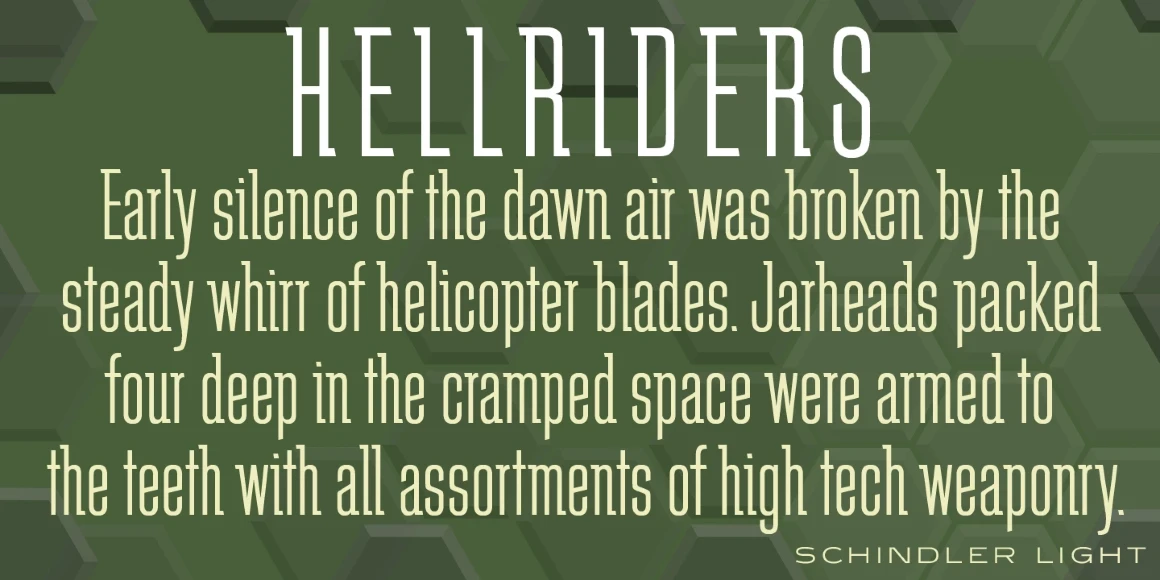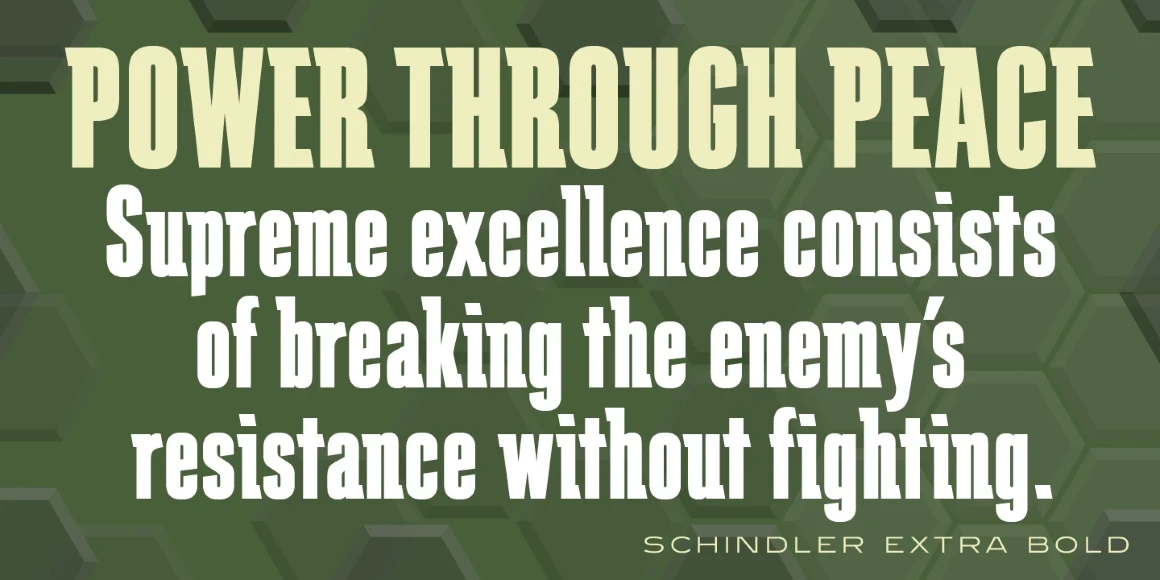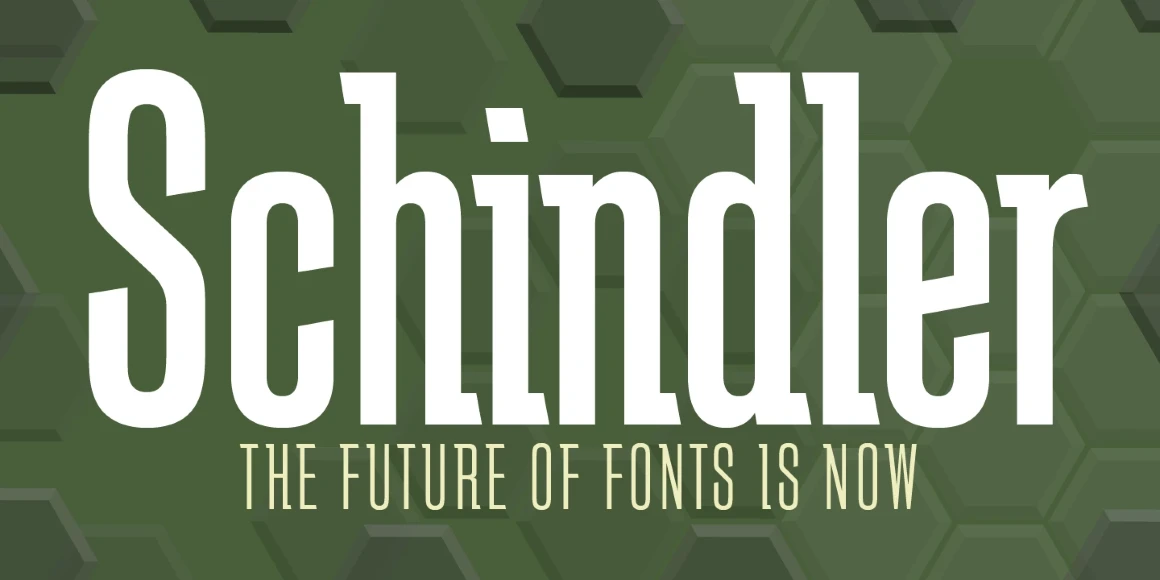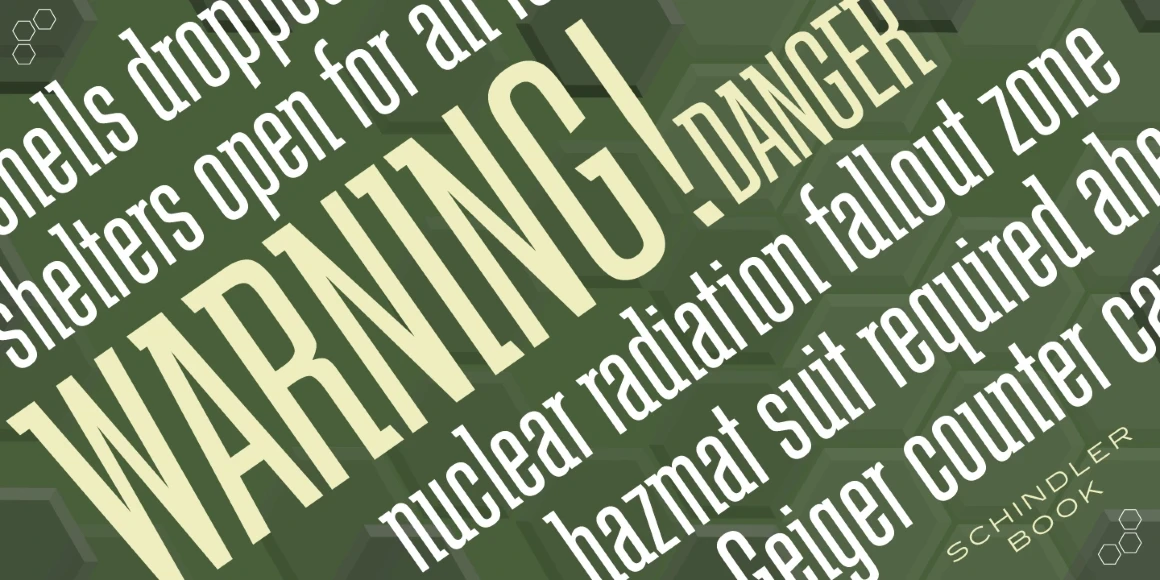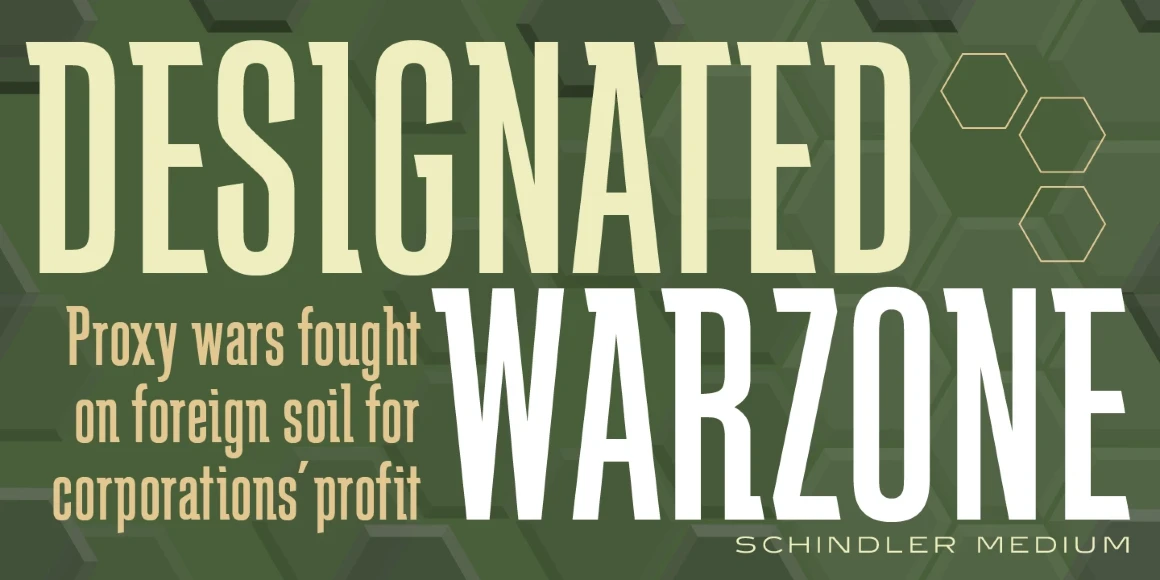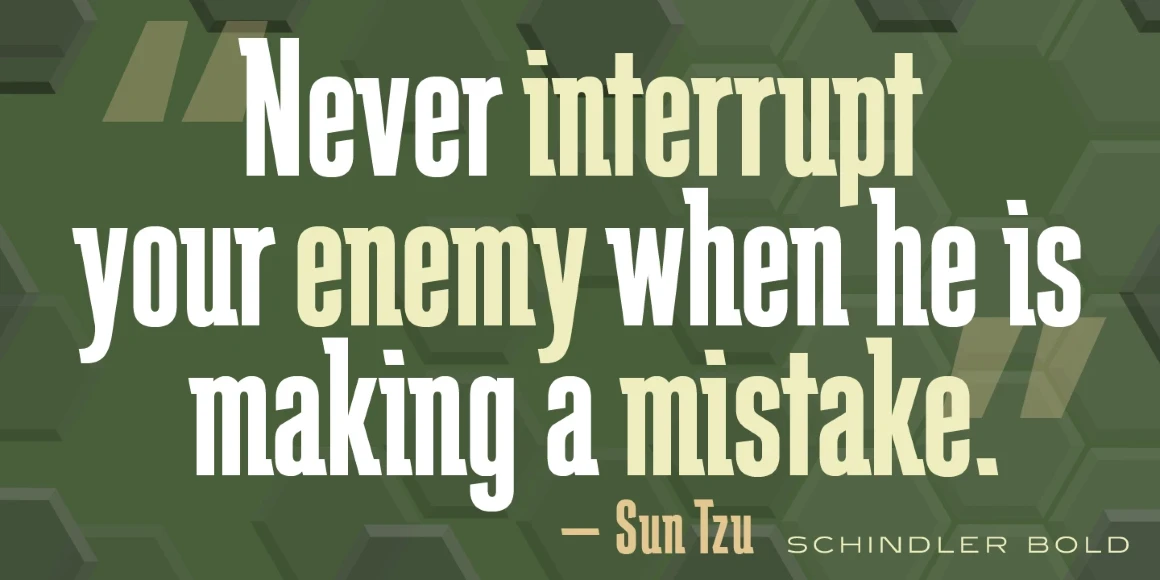
Schindler
Schindler Light
Schindler Book
Schindler Medium
Schindler Bold
Schindler Extra Bold
Schindler is a condensed, decorative, sans serif font family. It was created in 1994 by Steve Jackaman (ITF). Jackaman was working on Block Gothic Extra Condensed around the same time, and was inspired to create Schindler after experimenting with geometric embellishments to Block Gothic’s letterforms. Schindler has a clean, modern, and masculine feel. The geometric crossbars and tails of the family give it a pleasing mechanical aesthetic, yet the rounded forms still promote an approachable feeling. No matter the size it is used at, Schindler gives your project that extra “oomph.”